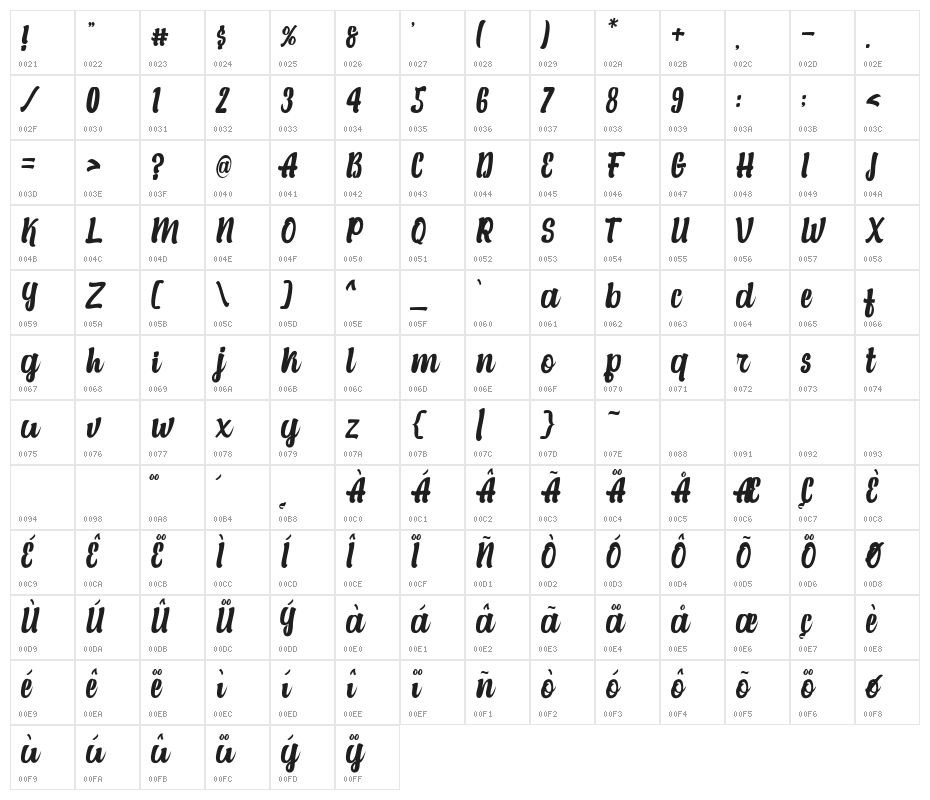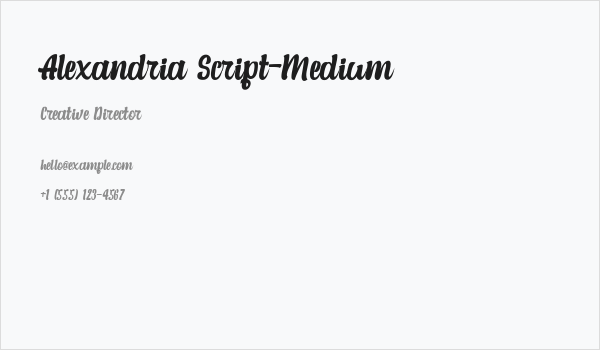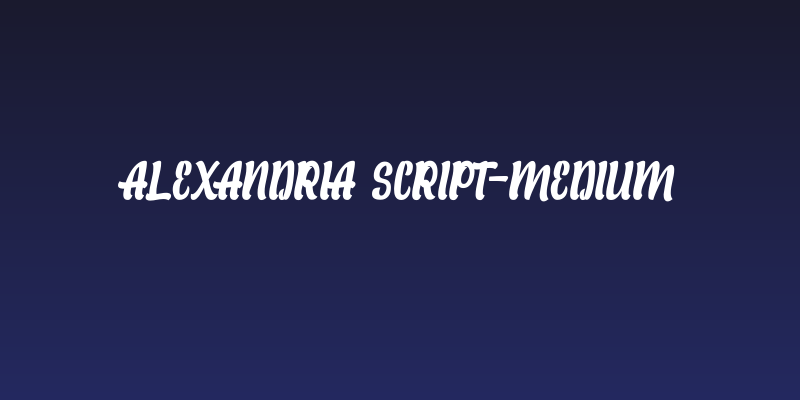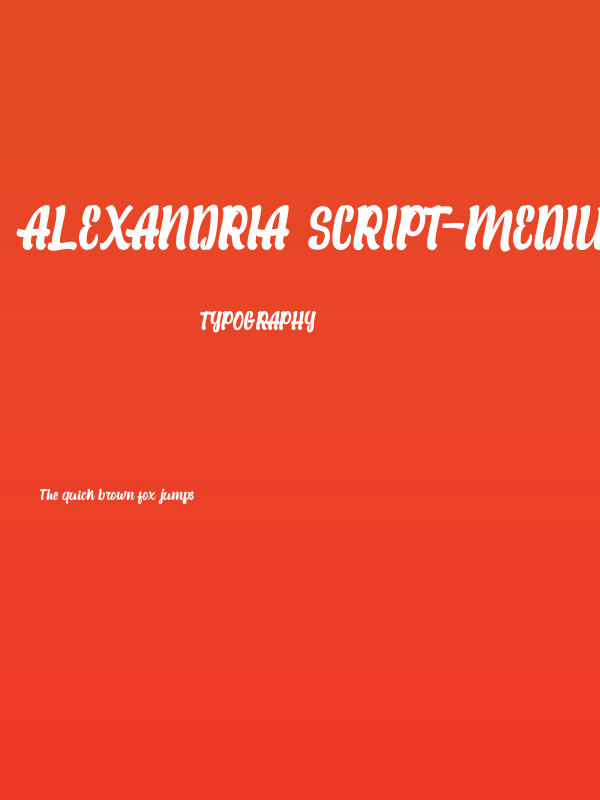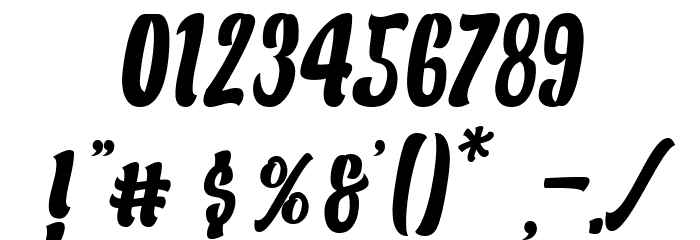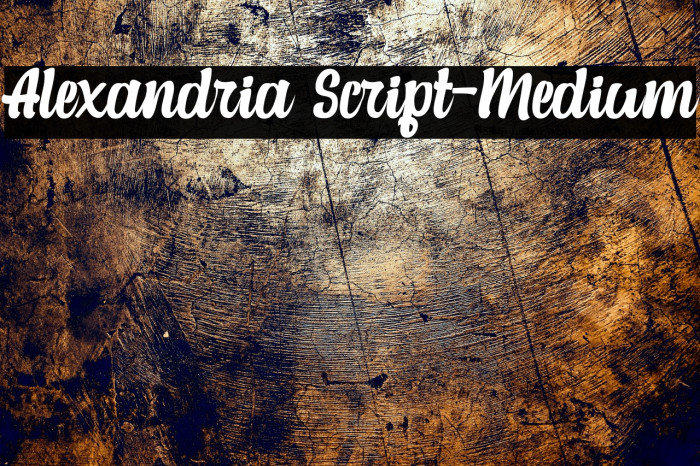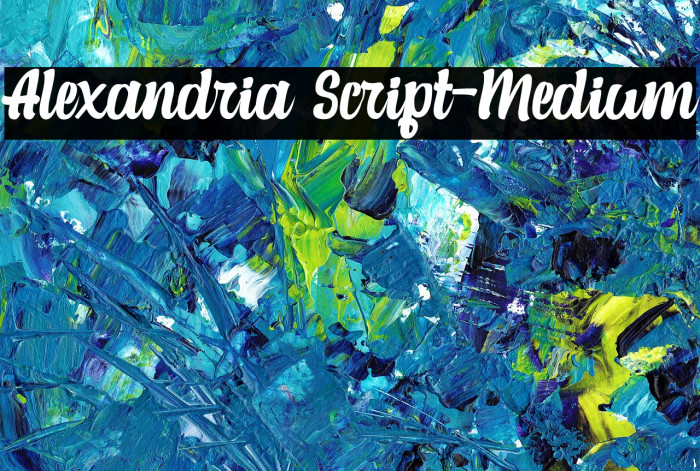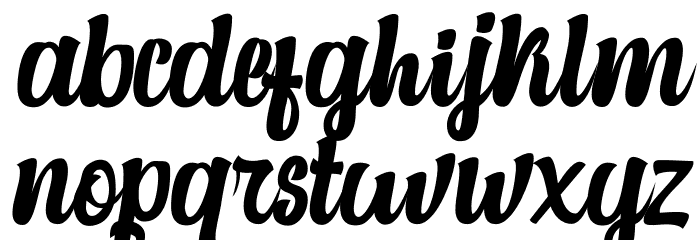
Alexandria Script-Medium Font
This font exudes a bold and expressive character, with its flowing script style that mimics the fluidity of handwriting. The letters are interconnected, creating a seamless and dynamic appearance. The uppercase letters are particularly striking, with their exaggerated curves and flourishes, while the lowercase letters maintain a consistent rhythm and balance. The numbers and special characters are crafted with the same attention to detail, ensuring a cohesive look across all elements. This font is ideal for projects that require a touch of elegance and personality, making it suitable for invitations, branding, and artistic endeavors.
| Proposed Projects | Ideal for invitations, branding, artistic projects, and any design needing an elegant, personal touch. |